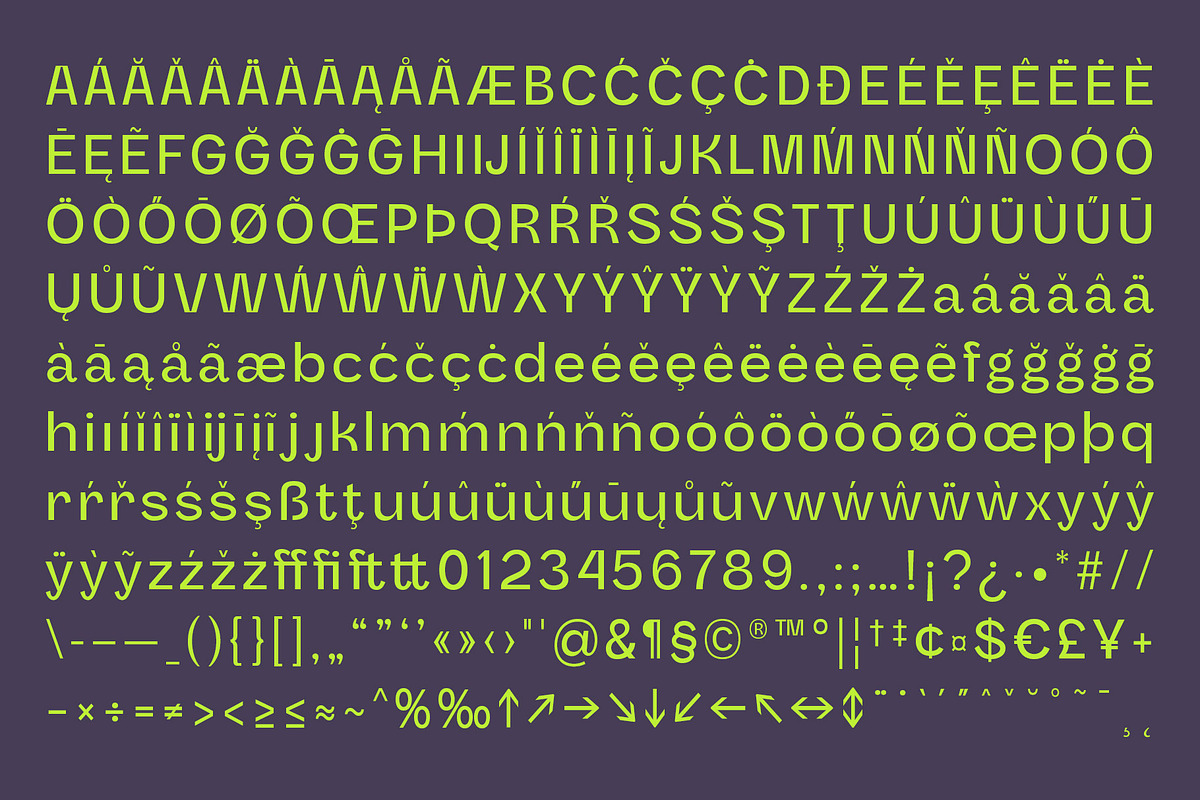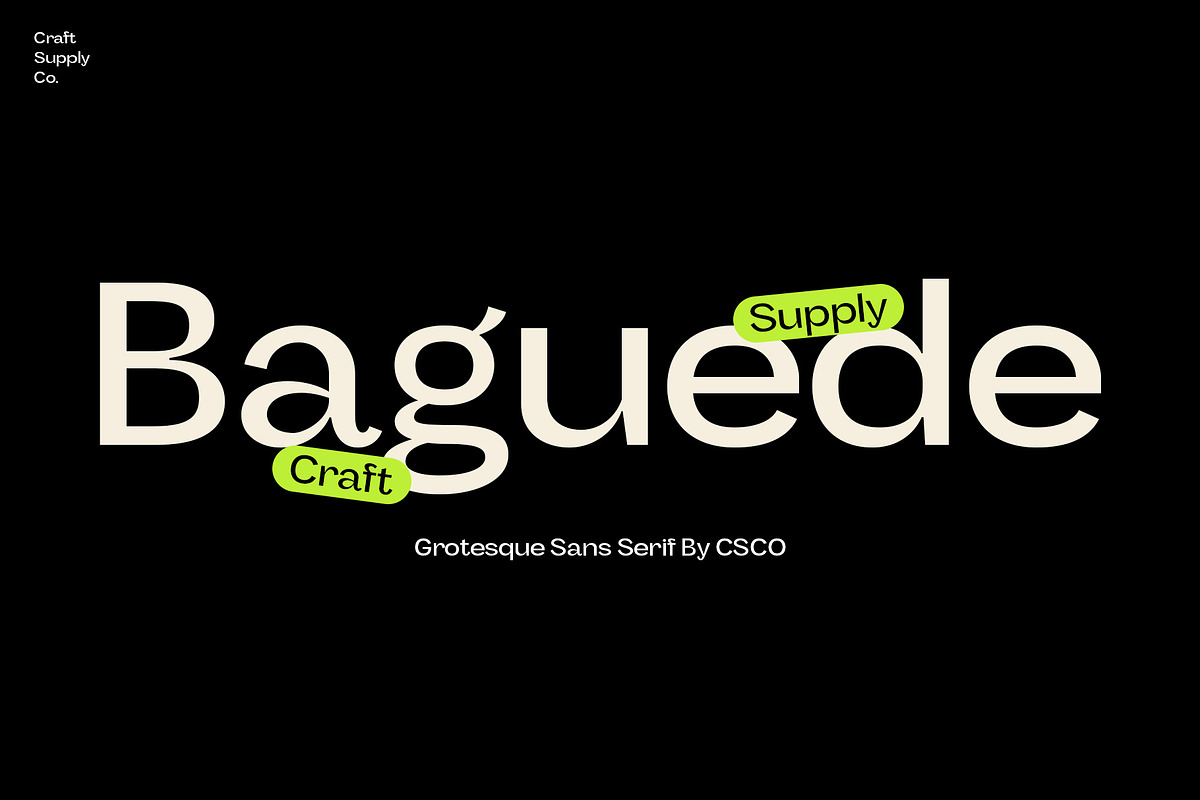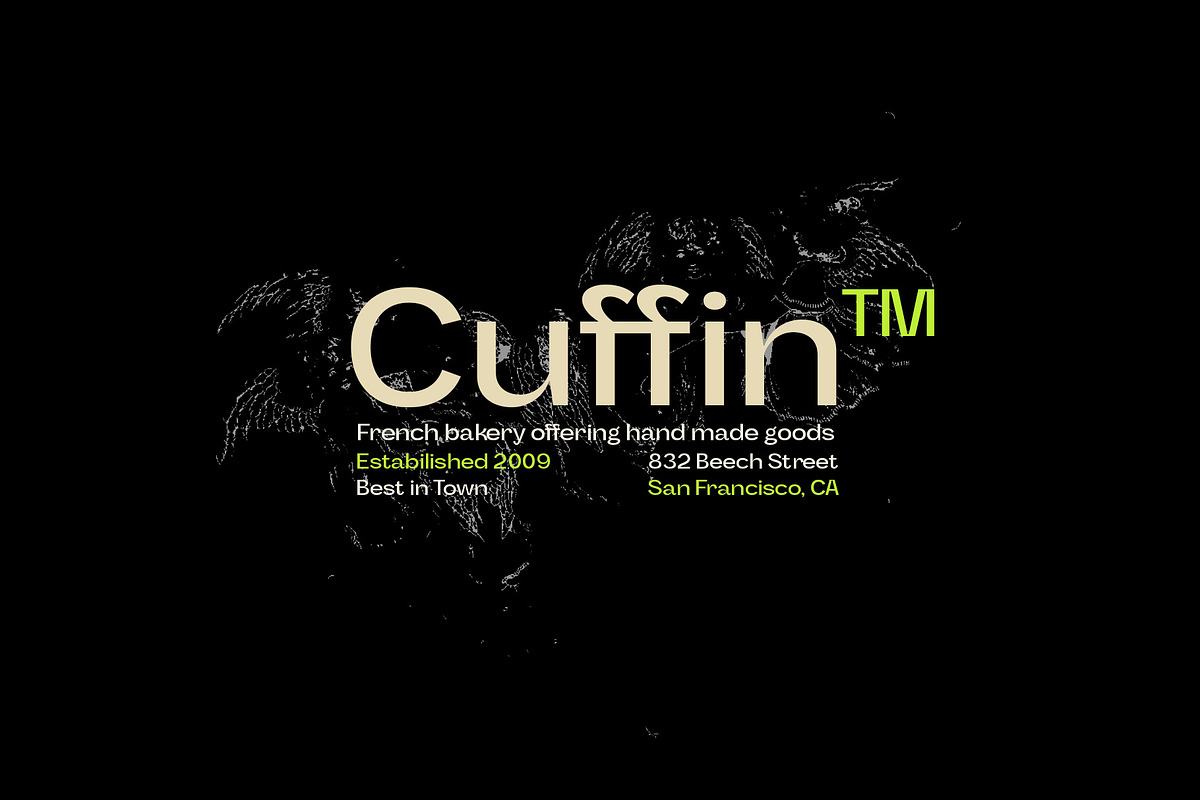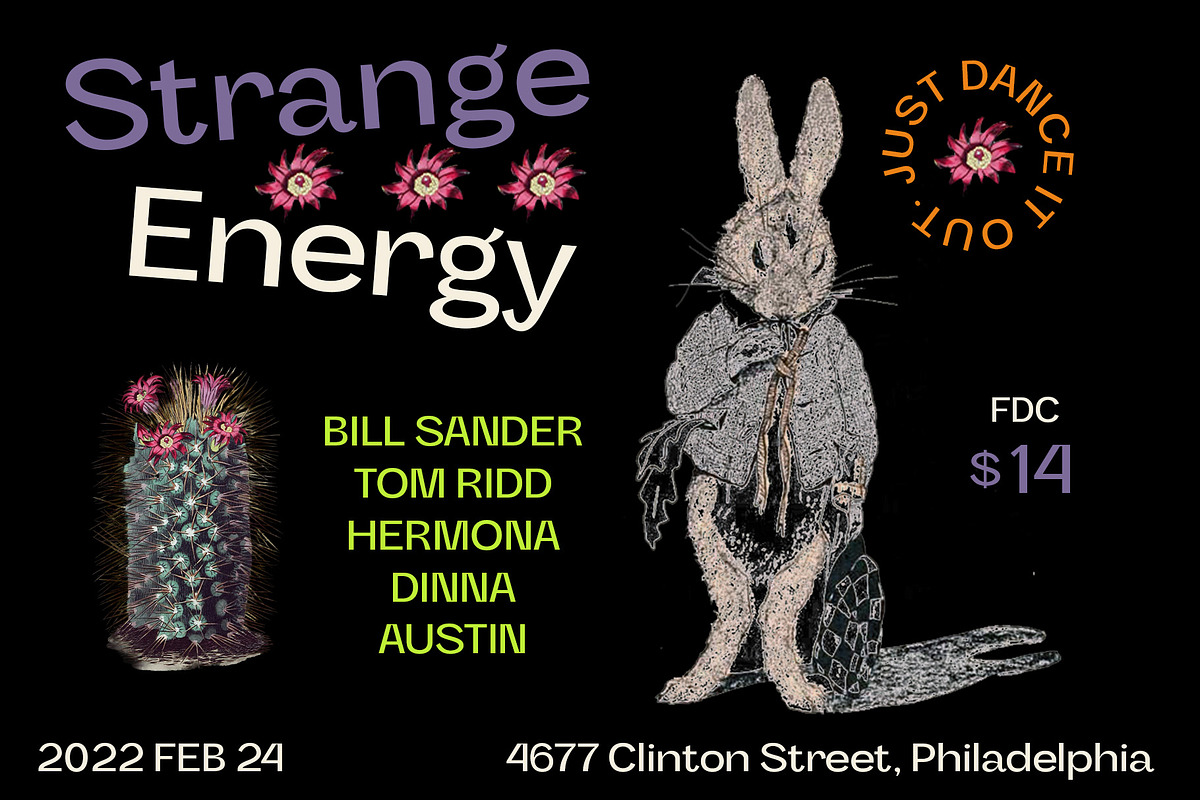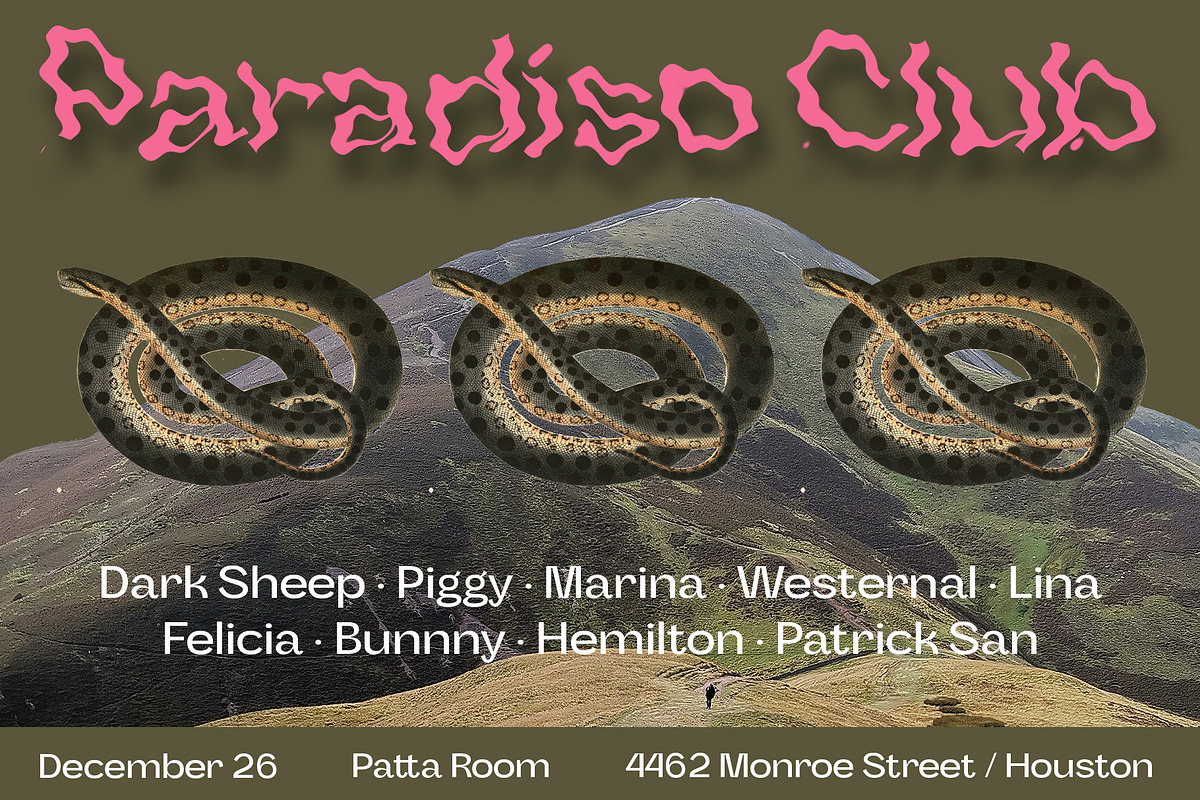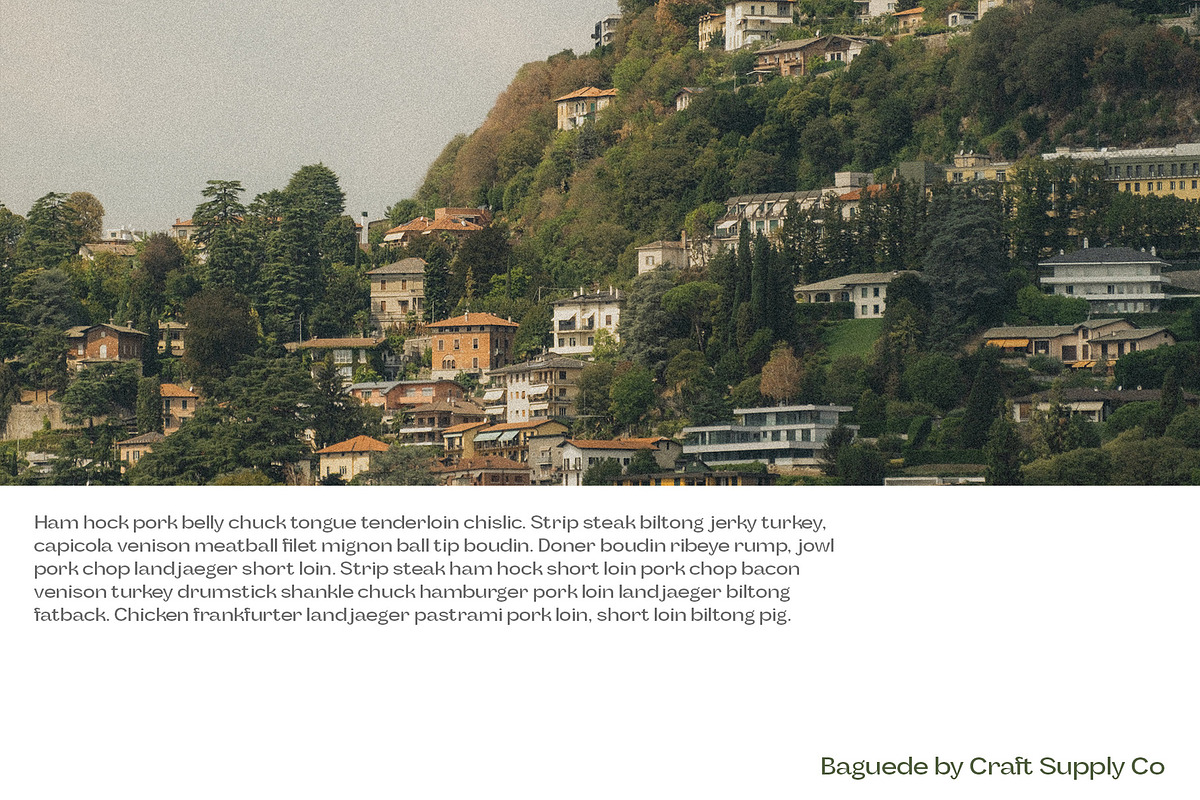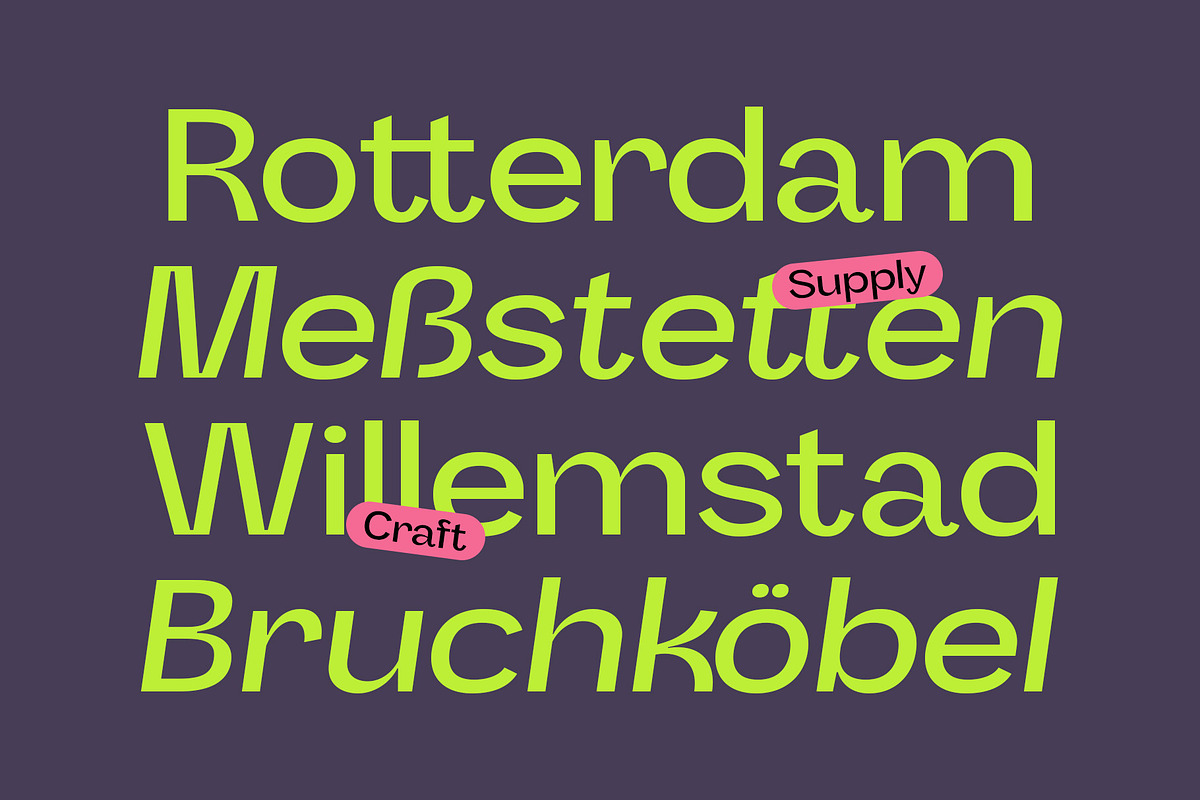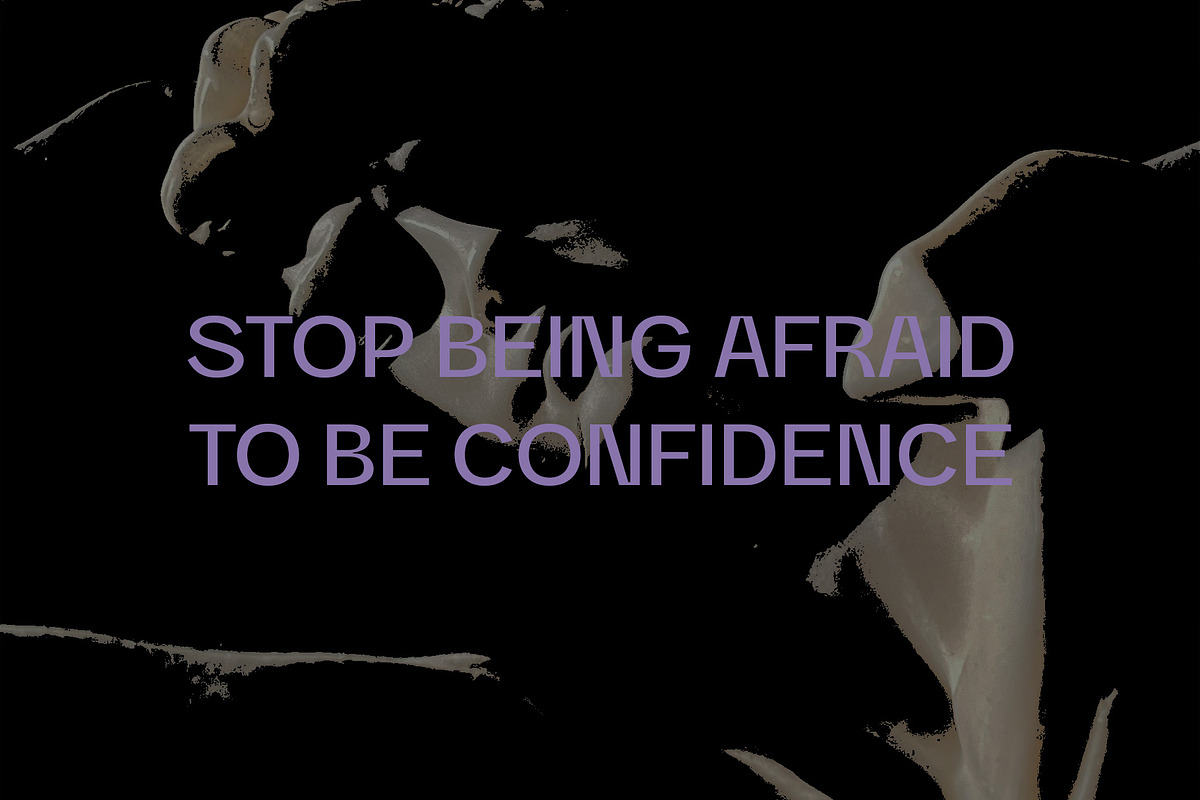
Baguede - Grotesque Sans Serif
Introducing Baguede, a post modern grotesque typeface with Fancy and catchy touch to maintain a sophisticated feel for the purpose of display.
- Baguede Regular
- Baguede Italic